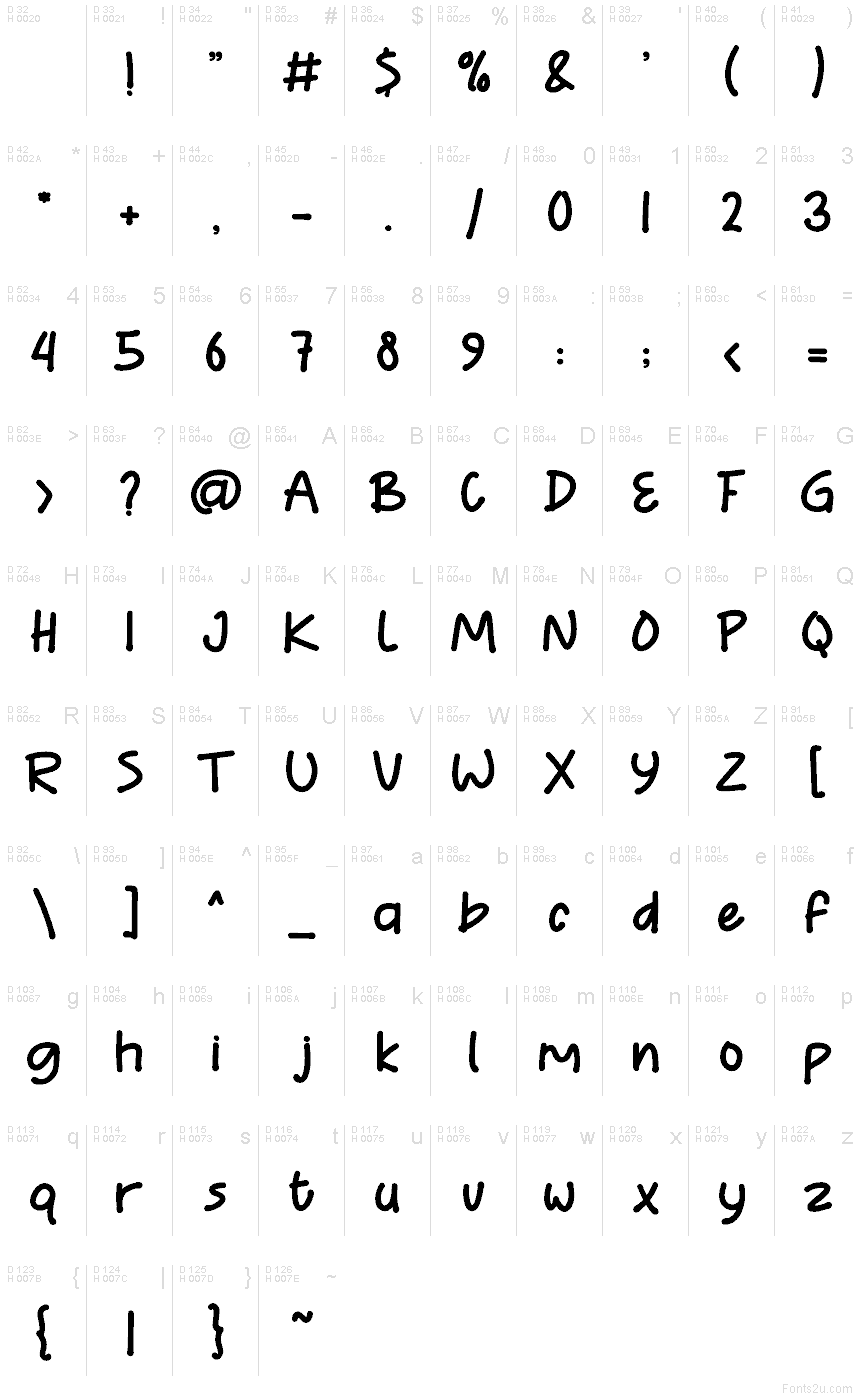
Ordinary Boys Handwriting
Ordinary Boys Handwriting font by PutraCetol Studio is a free brush handwriting typeface with the scruffy charm of a real marker pen on smooth paper. The strokes are rounded, slightly bouncy, and just uneven enough to feel personal, while staying easy to read at a glance. It has a lively, youthful rhythm that feels like notes in a school notebook or doodles on a skateboard deck—casual, bold, and full of energy.
Using Ordinary Boys Handwriting, you can bring that playful vibe to kids’ book covers, classroom printables, birthday invitations, stickers, YouTube thumbnails, social media posts, and fun product packaging. This free font holds up well at larger sizes where its inky edges and character really show. For longer text, pair it with a clean sans serif in a lighter weight and let Ordinary Boys Handwriting handle the headlines or key phrases.